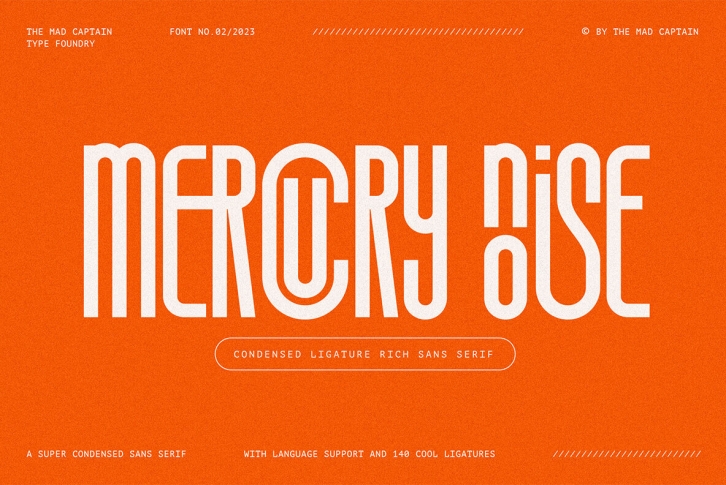
I'm thrilled to unveil my latest creation – Mercury Noise. As The Mad Captain, my aim is always to push the boundaries and craft fonts that are not just letters, but a form of art. Mercury Noise embodies everything I stand for – it's daring, modern, and unapologetically unique.
Picture this: a super-condensed sans-serif that's a bold departure from the norm. Mercury Noise isn't just a font; it's an attitude, a statement that refuses to be ignored. The uppercase design carries an air of confident simplicity, perfect for those who appreciate minimalism without sacrificing impact.
But here's where the real magic happens: ligatures. 140 meticulously crafted ligatures that take your words and transform them into visual masterpieces. These aren't just fancy connections between letters; they're an entirely new way to convey emotion and style through type. Each ligature is a stroke of design innovation that adds an unexpected edge to your projects.
Language barriers? Not on Mercury Noise's watch. I've poured my heart into ensuring it supports English, all European languages, and more. So whether you're crafting a global ad campaign or a local storefront sign, your message remains crystal clear, resonating with anyone, anywhere.
Mercury Noise isn't just a font you use; it's a tool you wield to make your mark. From sleek logos that demand attention to packaging that tells a story, this font doesn't just keep up – it stands out. It's a testament to my commitment to modern aesthetics, and it's here to give your creative journey a bold new direction.
So, if you're ready to break free from the mundane, to let your designs reverberate with a pulse of their own, Mercury Noise is your ticket. Let's make fonts that don't just speak but roar. Let's explore the uncharted territories of design. Let's embrace the noise and turn it into something extraordinary.